The Shady Street Show Band
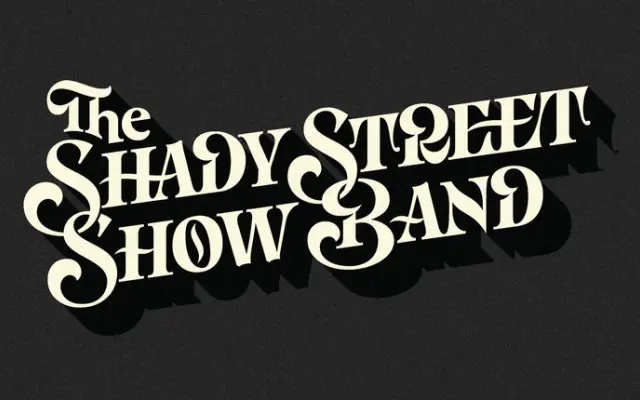
A vaudeville Victorian logotype designed for a New Jersey rhythm and roots band, built around warm, funky letterforms and a dark red, creme and charcoal palette.
Created as part of a broader rebranding project for The Shady Street Show Band of Asbury Park, NJ, the logotype draws on late 19th and early 20th century historical styles to produce a decorative Victorian lockup. The family includes a compact monogram variant for contexts where the full wordmark is too large, alongside an ornamental business card and electronic press kit. The warm palette and period-influenced forms are aimed squarely at the band's roots and rhythm identity.
The letterforms are described as vaudeville Victorian in style, drawing on late 19th and early 20th century historical references with warm, decorative qualities typical of Victorian display typography.